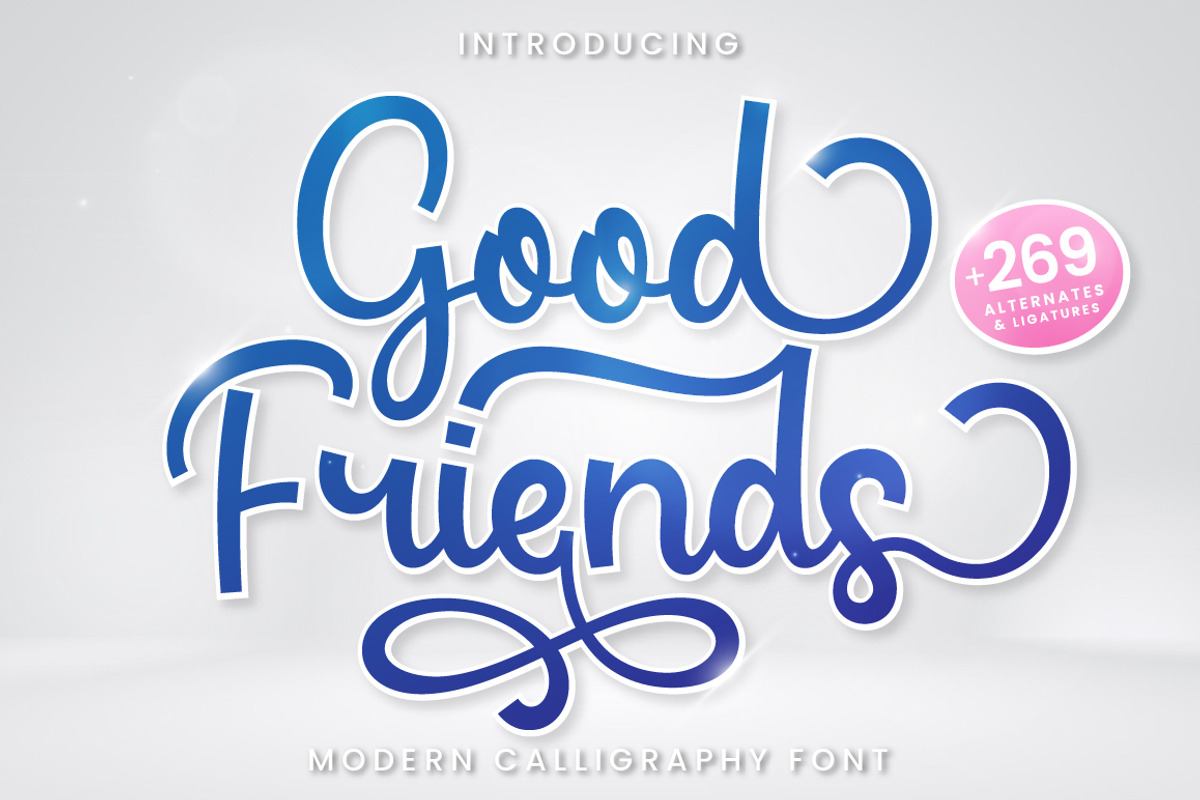
Good Friends - A Modern Bold Script Free Download
Good Friends - A Modern Bold Script Font Free Download
The Good Friends - A Modern Bold Script Font Free Download is a dynamic and stylish typeface that combines the fluidity of script with the boldness of modern design. Perfect for creating eye-catching logos, invitations, branding materials, and social media graphics, this font adds a personal yet striking touch to any project. Please note, for commercial use, a license must be purchased. You can download it for free for testing purposes.
With its bold strokes and elegant curves, the Good Friends - A Modern Bold Script Font Free Download is ideal for projects that require a strong yet artistic flair. Whether you're working on a creative logo, custom invitations, or vibrant promotional materials, this font will help your designs stand out with its unique personality.